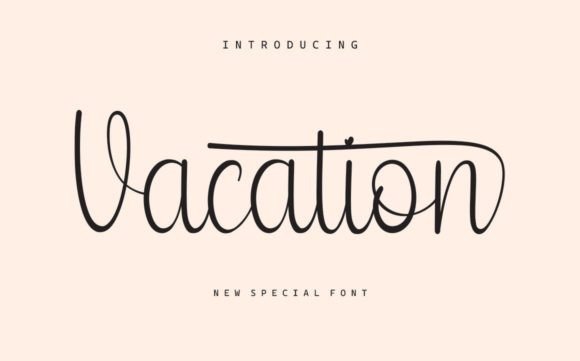
Journey through the realm of wanderlust with Vacation Font, an enthralling handwritten font that will ignite your creative spirit and transport your designs to exotic destinations. Crafted by Personal, Vacation Font isn't just a collection of characters; it's a ticket to a world of adventure, a passport to faraway lands, an invitation to escape the ordinary and embrace the extraordinary.
With its graceful curves and enchanting charm, Vacation Font possesses a versatility that knows no bounds. Let your imagination soar as you adorn greeting cards with heartfelt messages, headlines with captivating allure, and any project that yearns for a touch of romance. Whether you're a seasoned designer seeking inspiration or a creative explorer embarking on a new journey, Vacation Font will be your trusted companion, guiding you towards design excellence.
More than just a font, Vacation Font is an experience, a portal to a world where creativity flourishes and dreams take flight. Immerse yourself in the beauty of its characters, each one a stroke of genius, each one a testament to the power of imagination. Let Vacation Font be your muse, your artistic compass, your faithful companion on the path to design greatness.
Discover the boundless possibilities that await you with Vacation Font. Its elegant script will add a touch of sophistication to your travel brochures, capturing the essence of wanderlust and inviting readers to embark on a journey of discovery. Its flowing lines will weave a tale of adventure in your travelogues, transporting readers to distant lands and sparking their imagination.
Embrace the allure of Vacation Font and watch as your designs transform into captivating works of art. Its versatility will astound you, its beauty will enchant you, and its endless possibilities will leave you breathless. Let Vacation Font be your creative compass, your artistic muse, your faithful companion on the path to design excellence. Join the ranks of those who have discovered the magic of Vacation Font and let your creativity take flight.